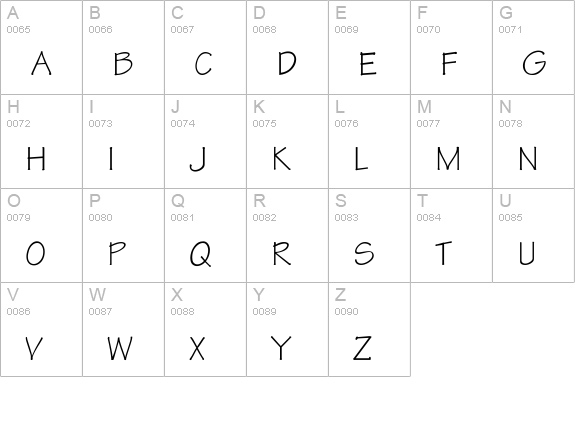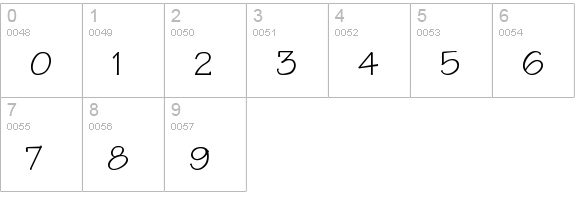
Tekton-Thin Font Details
Tekton-Thin is a delicate, low-contrast variant in the Tekton typeface family \xE2\x80\x94 well suited to fashion editorial, minimal branding, and high-contrast display.
Introducing Tekton-Thin, a captivating font that effortlessly combines elegance and modernity. With its sleek and slender design, Tekton-Thin is the perfect choice for those seeking a font that exudes sophistication and contemporary flair. Crafted with precision and attention to detail, this font showcases a delicate balance between thin lines and subtle curves, resulting in a truly mesmerizing visual experience. Each letter is meticulously crafted to showcase its unique character, allowing for a seamless flow of text that is both aesthetically pleasing and easy to read. Tekton-Thin is not only visually stunning, but it also offers versatility in its usage. Whether you are creating branding materials, invitations, or web designs, this font is sure to make a lasting impression. Its ability to adapt to various design styles and projects makes it a must-have for any creative endeavor. But what sets Tekton-Thin apart from other fonts is that it is freely available to download at FontsMarket.com. Yes, you read that right – this extraordinary font can be yours at absolutely no cost. FontsMarket.com offers a vast collection of premium-quality fonts, and Tekton-Thin is just one of the many gems waiting to be discovered. So why wait? Unleash your creativity and elevate your designs with the captivating allure of Tekton-Thin. Download it now from FontsMarket.com and unlock a world of endless possibilities. Experience the beauty of this font and witness how it effortlessly transforms your projects into works of art. Don't miss out on this incredible opportunity to enhance your design arsenal with a font that is both visually striking and freely available.